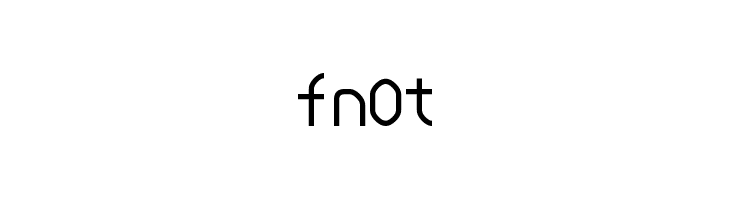
( Ruben Holthuijsen )
A modern, rounded font with a clean and approachable design.
( Ruben Holthuijsen )
A bold, rounded font with a playful and approachable style.
( Typefar - Farul Arjianto - fontbundles.net/typefar )
A bold, handwritten font with a playful and energetic style.
( Zulkhairi M Saleh - fontbundles.net/zulkhairilettering )
A creative, hand-drawn style font with elongated, artistic letterforms.
( deFharo - Fernando Haro - defharo.com )
A modern, geometric font with angular shapes and clean lines, perfect for tech projects.
( Blahfonts - www.gwydir.demon.co.uk/giles/ )
A modern, geometric font with consistent stroke widths and a clean appearance.
( Blahfonts - www.gwydir.demon.co.uk/giles/ )
A bold, angular, and geometric decorative typeface.
( Blahfonts - www.gwydir.demon.co.uk/giles/ )
A playful, wavy font with a hand-drawn, organic appearance.
( Buzzbum - buzzbum.tripod.com/ )
A bold, playful font with a hand-drawn, quirky style.
( Dan Smith's Fantasy Fonts - www.acondia.com/fonts/index.html )
A bold, geometric font with a modern and assertive style.